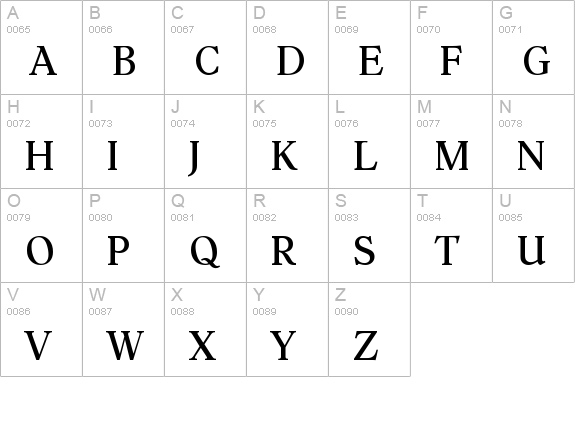
HobokenSerial-Regular Font Details
HobokenSerial-Regular is the standard, neutral variant in the HobokenSerial typeface family \xE2\x80\x94 well suited to general body text, paragraphs, and standard typographic work.
HobokenSerial-Regular is a versatile and modern font that exudes elegance and sophistication. With its clean lines and balanced proportions, this typeface is perfect for a wide range of design projects, from logos to branding materials to web content. This font offers a unique blend of classic and contemporary styles, making it a standout choice for designers looking to make a statement. The HobokenSerial-Regular font is not only visually appealing but also highly readable, making it ideal for both print and digital applications. Best of all, this premium font is available for free download at FontsMarket.com. Whether you're a seasoned designer or just starting out, you can easily access and use HobokenSerial-Regular to elevate your projects and enhance your creative vision. Don't miss out on this opportunity to add a touch of sophistication to your designs with this exquisite font.